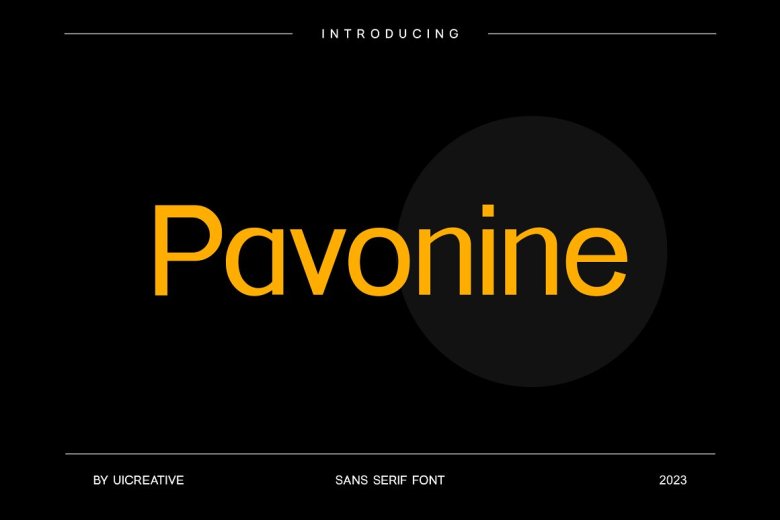
Pavonine Font
Pavonine Font is a contemporary grotesque sans serif inspired by early 20th Century grotesques. This versatile font can be used for numerous projects such as signatures, stationery designs, logos and wedding invitations, typography quotes or magazine covers – as well as branding packages, clothing design website headers or editorial design that showcase both masculine and feminine qualities.
Pavonine Sans Serif Font